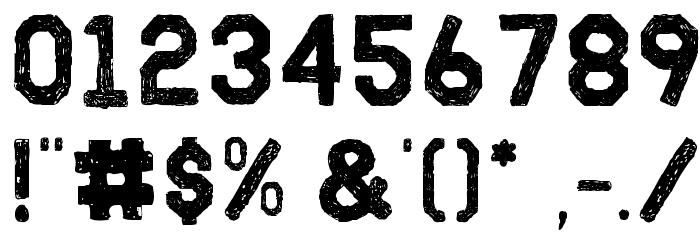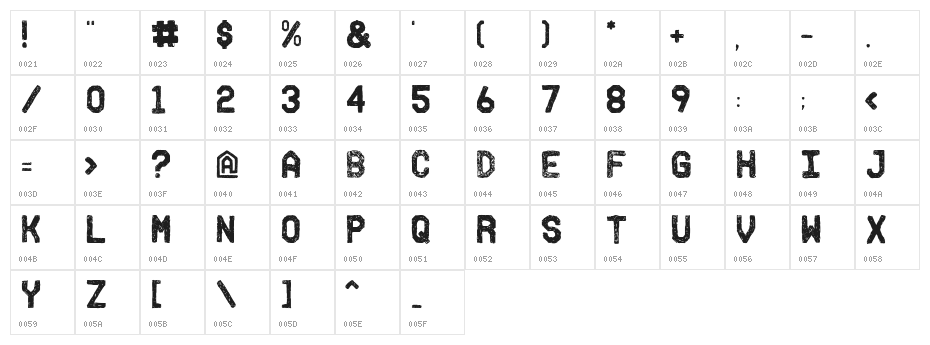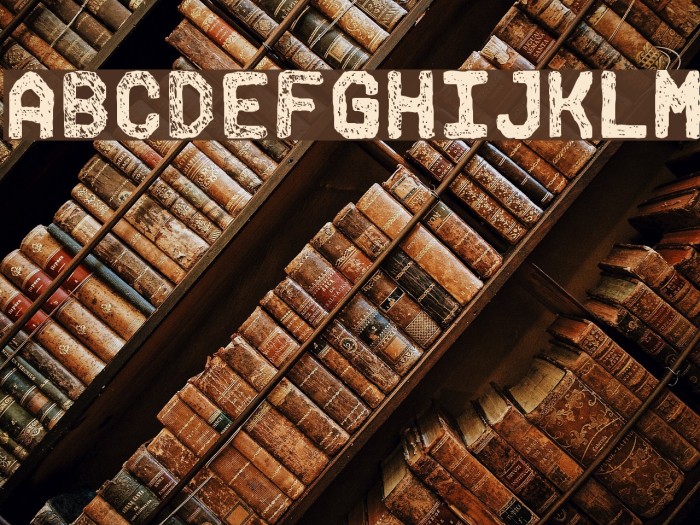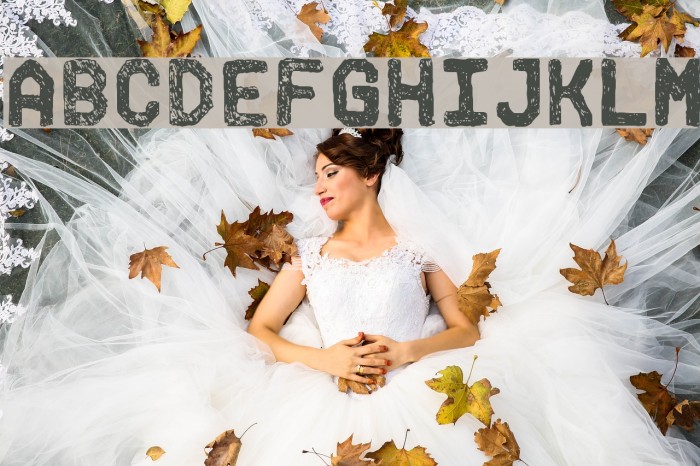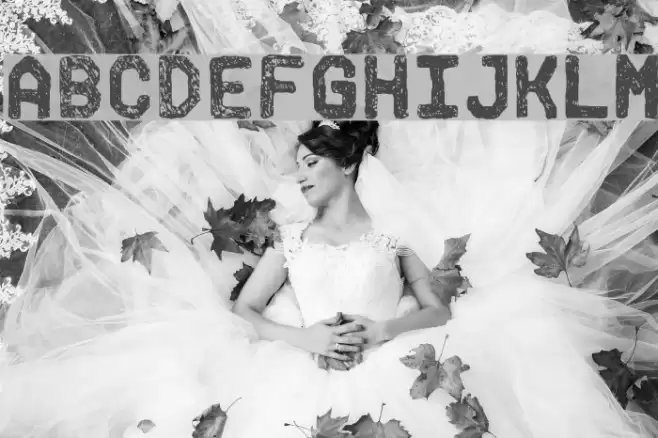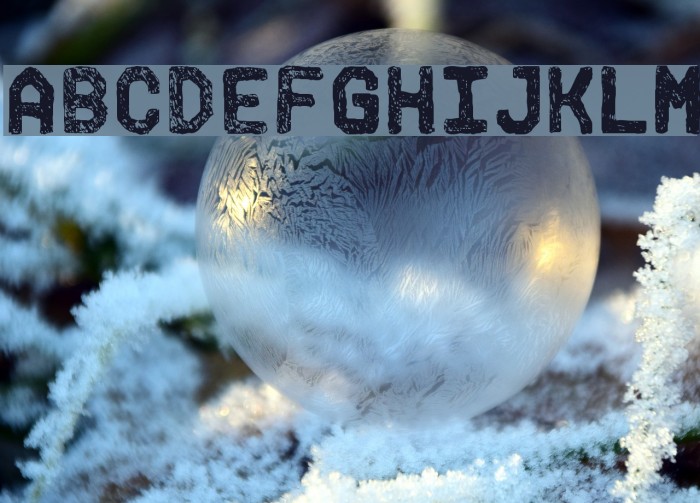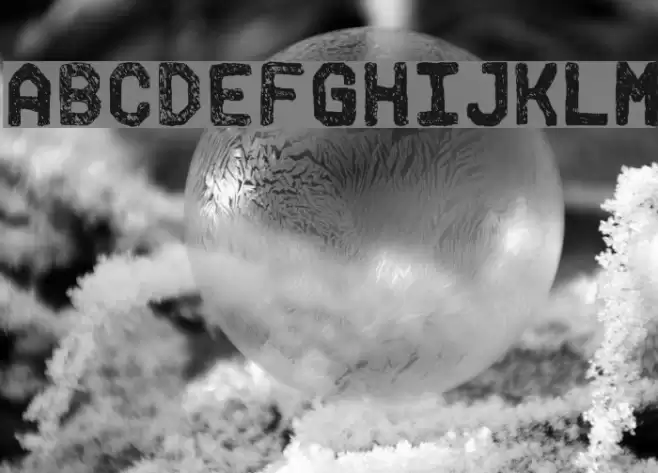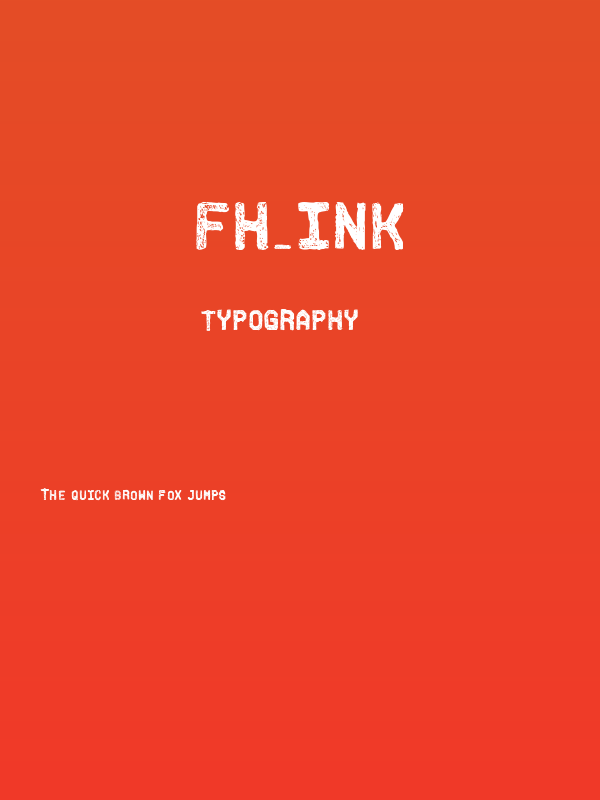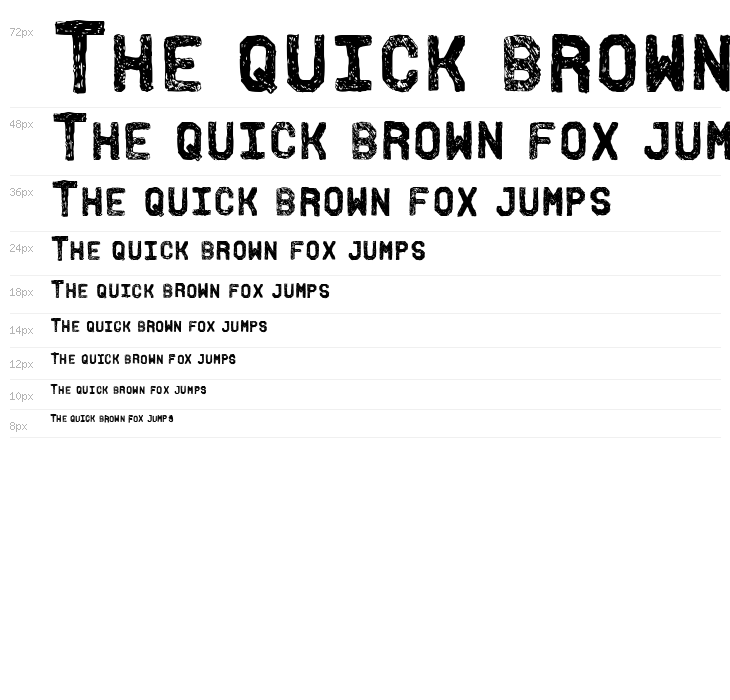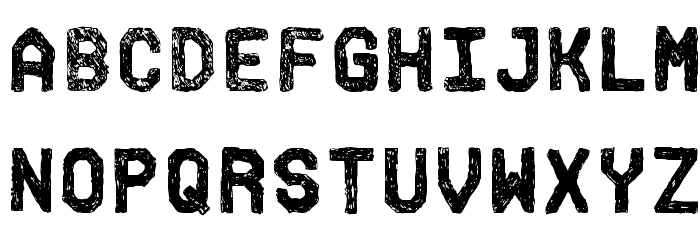
Fh_Ink Font
Fh_Ink Description
This font features a distressed, textured appearance that mimics the look of ink that has been stamped or printed with slight imperfections. The characters are bold and have a rough, uneven surface, giving them a handmade, vintage feel. The uppercase and lowercase letters maintain a consistent style, with thick strokes and a slightly irregular outline that adds to the rustic charm. Numbers and special characters are equally bold and textured, ensuring a cohesive look across all glyphs. This font is ideal for projects that require a touch of authenticity and a handcrafted aesthetic.
| Proposed Projects | Ideal for vintage-themed posters, branding, packaging, and any design requiring a handcrafted, rustic look. |